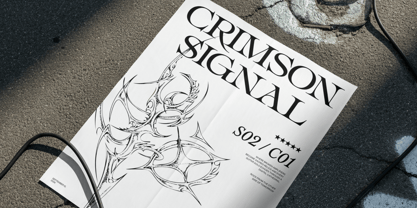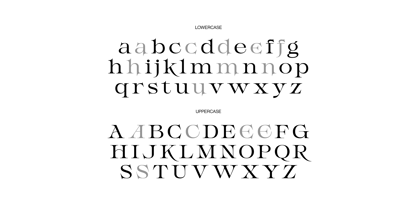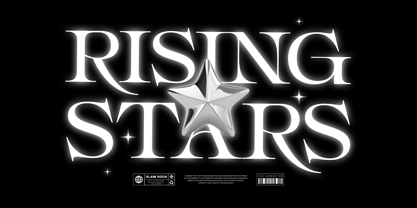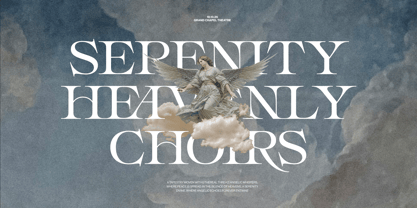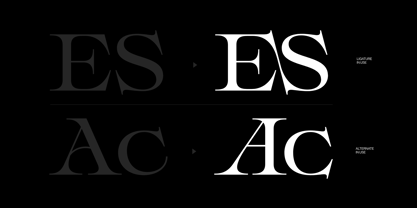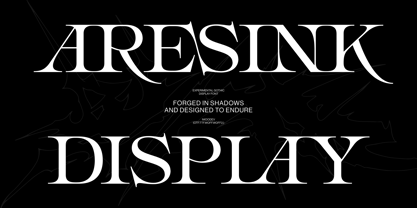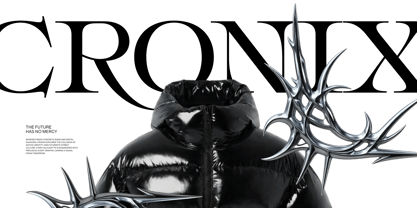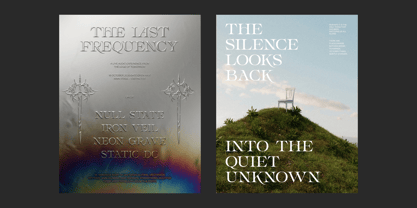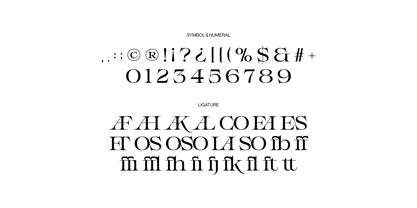
Aresink
La familia tipográfica Aresink fue diseñada por Aulia Savira Putri y publicada por Imoodev. Aresink contiene 1 estilos. Más información sobre esta familia
Aresink is an experimental gothic display typeface built on high contrast serif structures fused with blackletter inspired detailing, thick vertical stems snap into razor thin hairlines and sharply pointed, blade like serifs, giving every letter a forged, almost weaponized edge.
The lowercase set softens slightly but retains the same spurred terminals and calligraphic tension. Aresink font perfect to oversized headline use, logotypes, posters, album art, fashion branding, metal/rock posters, and editorial mastheads.